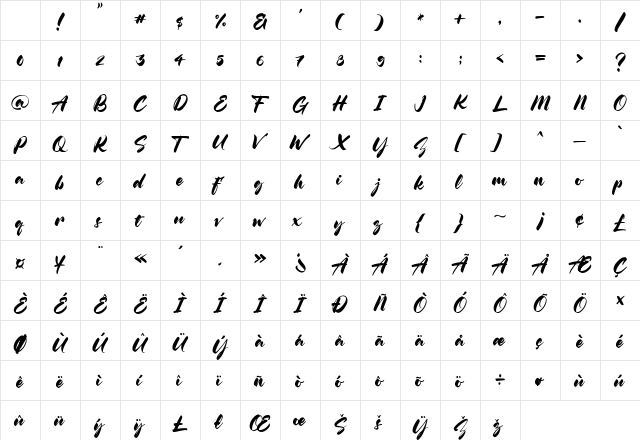
Complete Astral Studio Regular glyph index. Displaying only characters natively supported by Astral Studio Regular font.
Astral Studio is a composed and adaptable typeface that performs quietly and consistently across a wide range of design contexts.